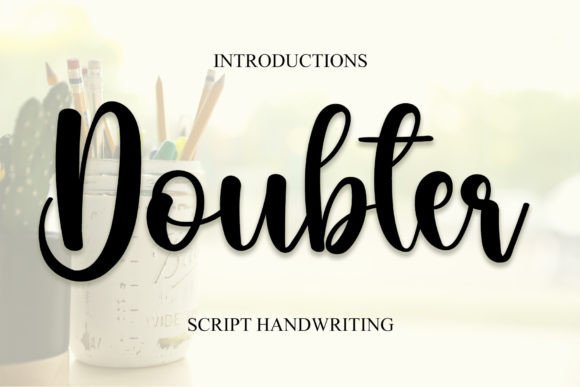
Introducing Doubter Font, the perfect script font for your Christmas design needs! Created by the talented team at 21Design, this font is a delightful blend of sweetness and elegance.
With its cursive and handwritten style, Doubter Font brings a touch of charm to any project. Whether you're creating holiday greeting cards, invitations, or festive banners, this font will instantly elevate your designs and make them stand out.
Imagine the joy and warmth this font will bring to your Christmas-themed projects. Its fluid strokes and intricate details create a sense of coziness and nostalgia, evoking memories of crackling fireplaces, twinkling lights, and the magic of the holiday season.
Doubter Font's versatility knows no bounds. It is equally suitable for both digital and print media, ensuring that your designs will look stunning across various platforms. From social media graphics to merchandise labels, this font will captivate your audience and leave a lasting impression.
Let your creativity soar with Doubter Font. Whether you're a seasoned designer or just starting out, this font is incredibly easy to use. Its user-friendly nature allows you to effortlessly incorporate it into your projects, saving you time and energy.
Unleash your imagination and infuse your designs with the spirit of Christmas using Doubter Font. Get ready to mesmerize your audience with its enchanting curves and elegant flair. Don't miss out on the opportunity to make your designs truly unforgettable.